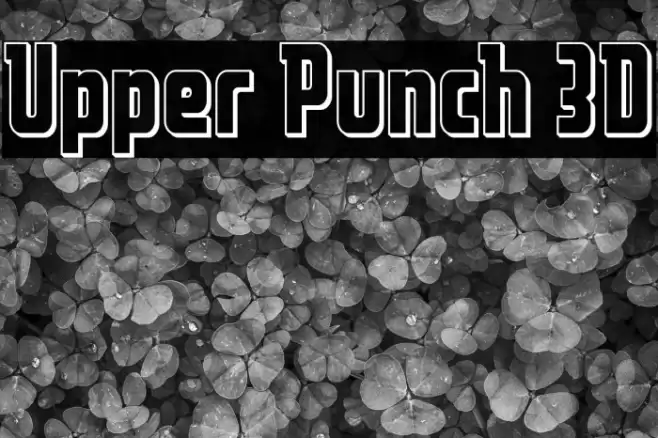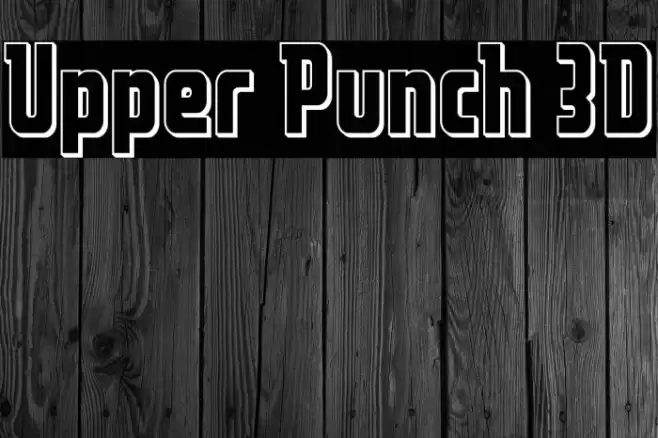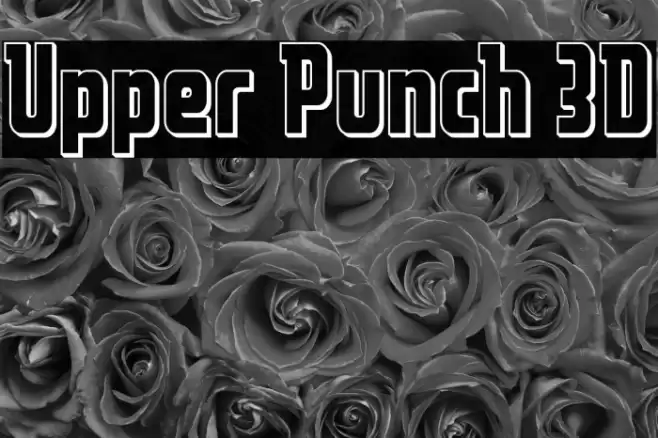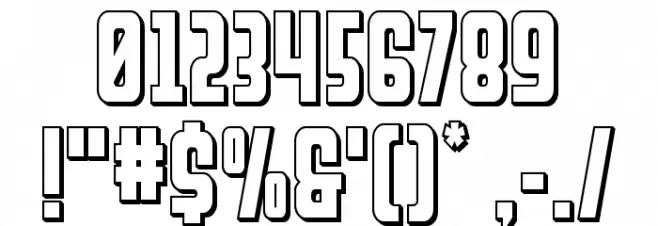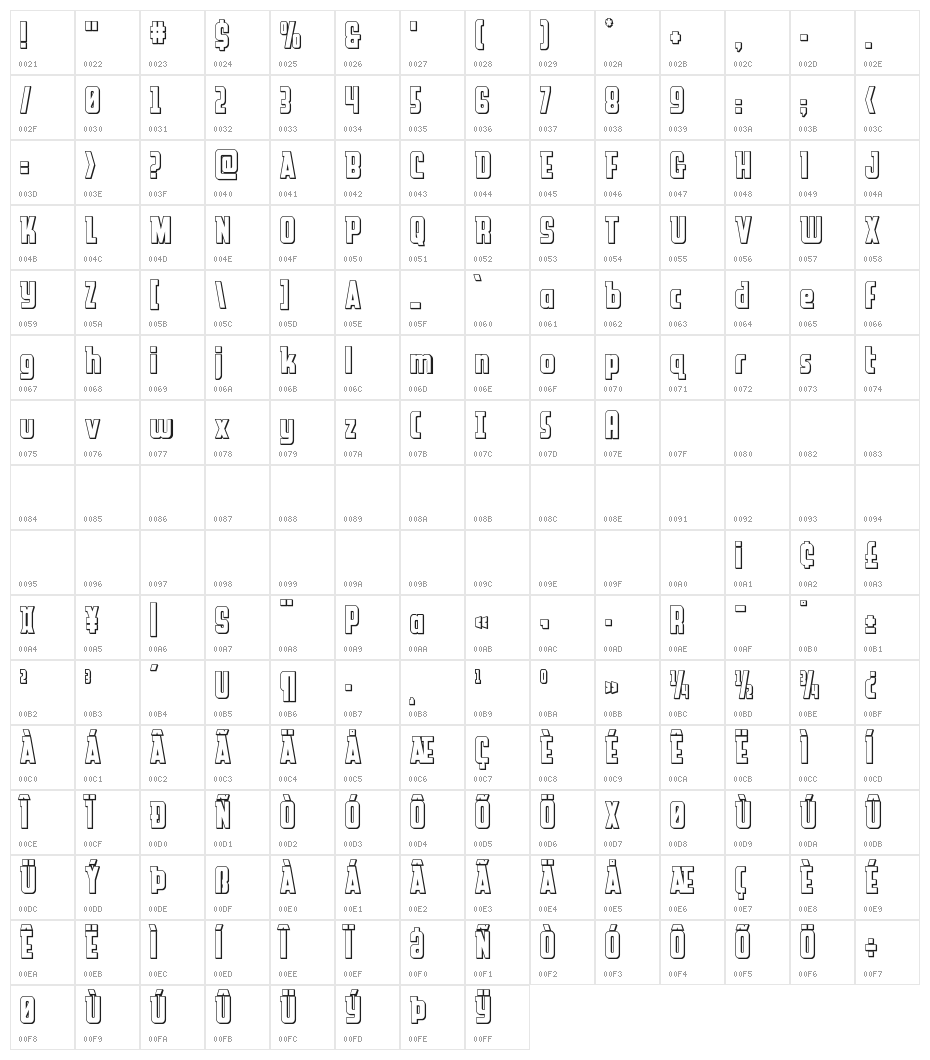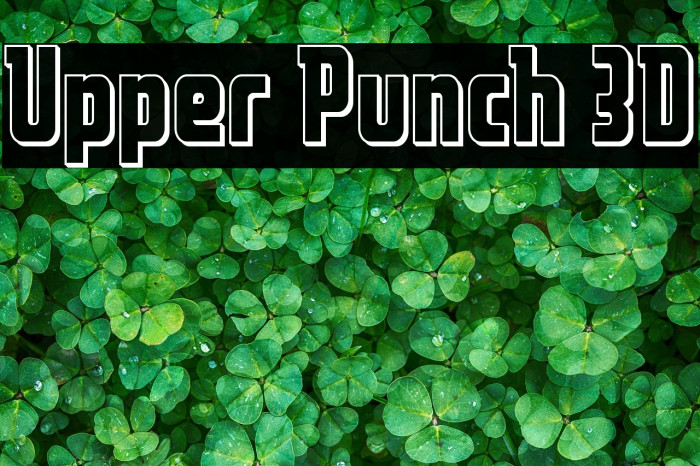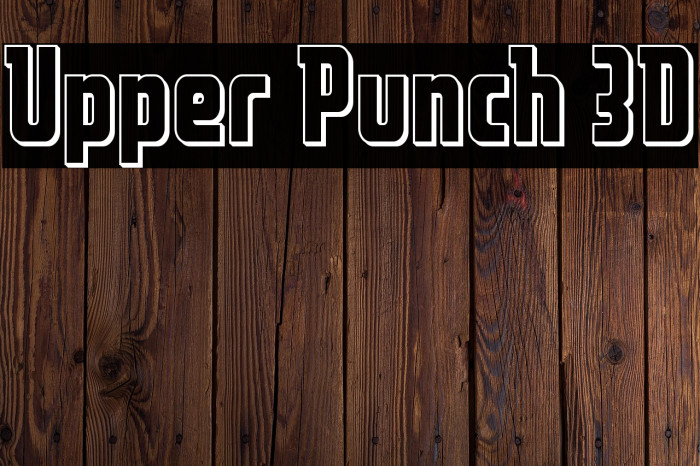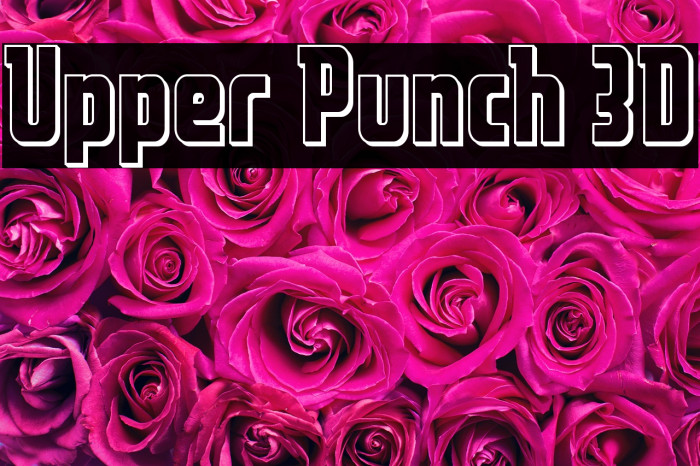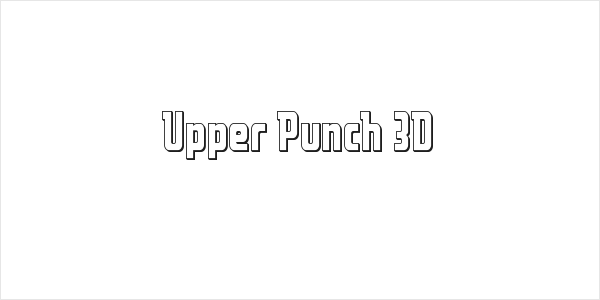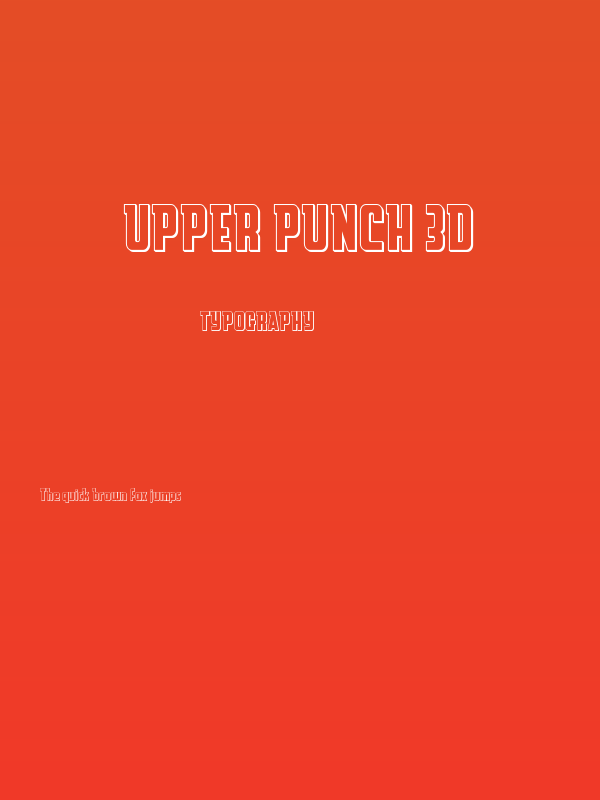
Upper Punch 3D Font
Upper Punch 3D Description
This font features a bold, three-dimensional appearance with a strong outline that gives each character a punchy, impactful look. The uppercase and lowercase letters maintain a consistent width, creating a uniform and cohesive style. The numerals and special characters follow the same design principles, ensuring a seamless integration across different uses. The font's geometric structure and clean lines make it highly legible, while the 3D effect adds a layer of depth and interest. This combination of boldness and dimensionality makes it ideal for attention-grabbing designs.
A bold, 3D font with strong outlines and geometric structure from Regular fonts.
- Proposed Projects: Ideal for posters, headlines, logos, and any design requiring a bold, eye-catching typeface.